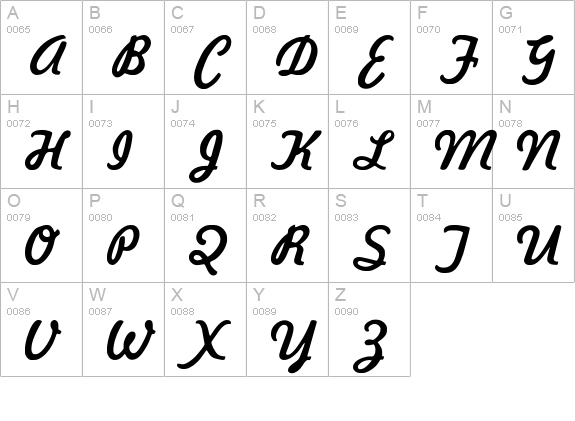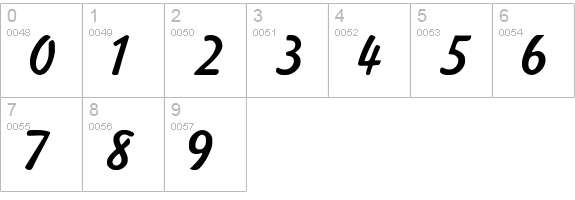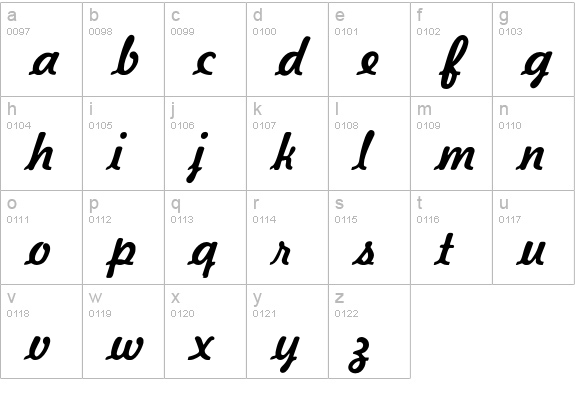
KavalerKursive Font Details
Introducing KavalerKursive, a captivating and elegant font that effortlessly combines grace and sophistication. With its delicate curves and refined strokes, this font adds a touch of refined beauty to any design project. KavalerKursive is the perfect choice for those seeking a font that exudes a sense of sophistication and elegance. Its flowing lines and graceful letterforms create a harmonious and captivating visual experience. Whether used for invitations, branding, or editorial design, KavalerKursive adds a touch of timeless charm. What sets KavalerKursive apart is not only its impeccable design but also its accessibility. This font is freely available to download at FontsMarket.com, making it accessible to designers, artists, and enthusiasts alike. Now, you can effortlessly elevate your projects without any restrictions or limitations. With KavalerKursive, your creative possibilities are endless. Its versatility allows it to seamlessly adapt to any design concept, from wedding invitations to luxury branding. The font's smooth and flowing curves effortlessly capture attention and leave a lasting impression. Designed with meticulous attention to detail, KavalerKursive is a true masterpiece. Its letters are carefully crafted to ensure legibility without compromising on style. Each character bears a unique charm that adds a distinct personality to your designs. Embrace the beauty of KavalerKursive and let it transform your projects into works of art. Whether you're a professional designer or a creative enthusiast, this font is sure to captivate your audience and elevate your work to new heights. Download KavalerKursive for free at FontsMarket.com and unlock a world of elegance and sophistication for your design endeavors.